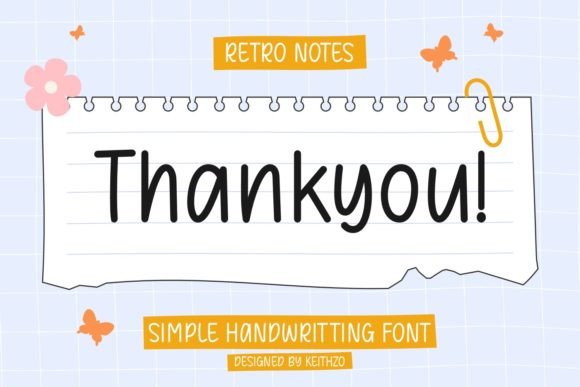
Retro Notes Font
Write beautifully and neatly with this Retro Notes font. It gives you the option to write beautiful and legible notes while maintaining a classic handwritten look. It is perfect for greeting cards to kids’ crafts, and is guaranteed to add a sweet touch to your next design.